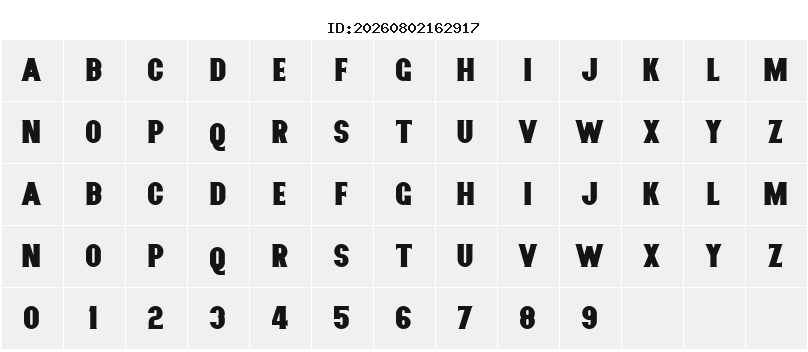
• Font Name: Nurjan Free
• Designer: Twicolabs Design
About Nurjan Free.ttf
Nurjan Free.ttf is a modern, elegant sans-serif font designed for ultimate readability and visual harmony. Perfect for branding, headlines, web design, and print materials.